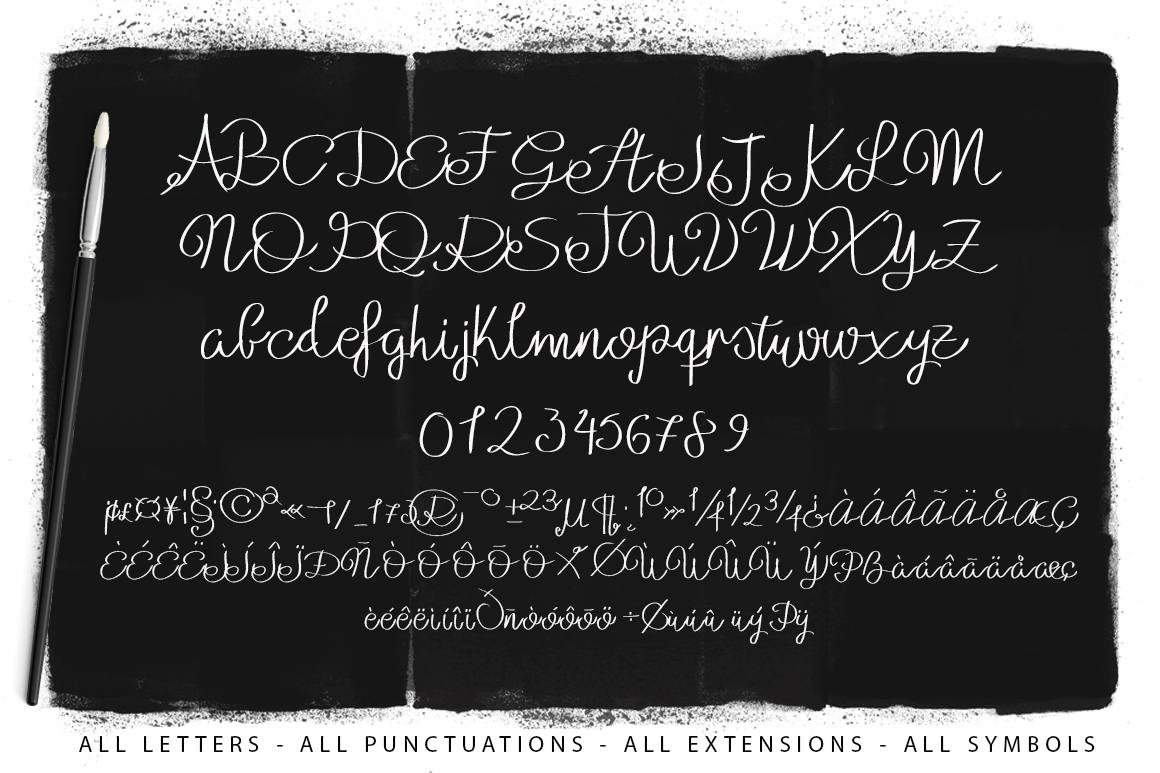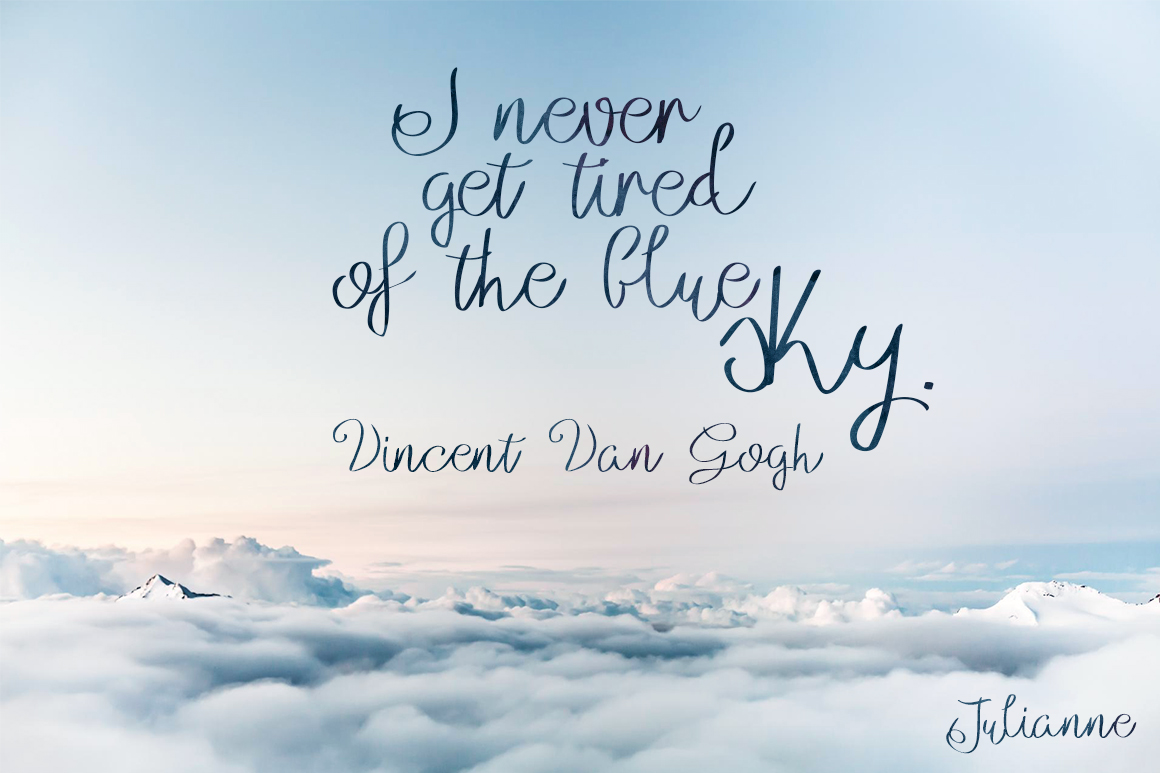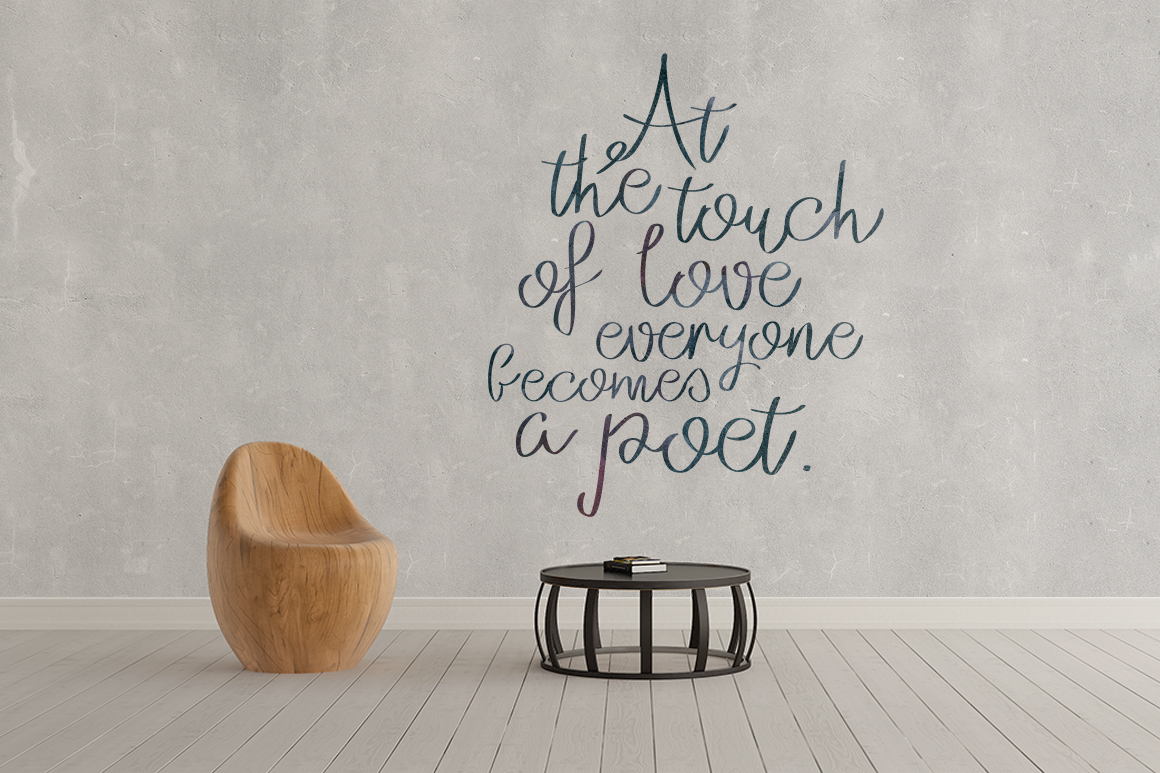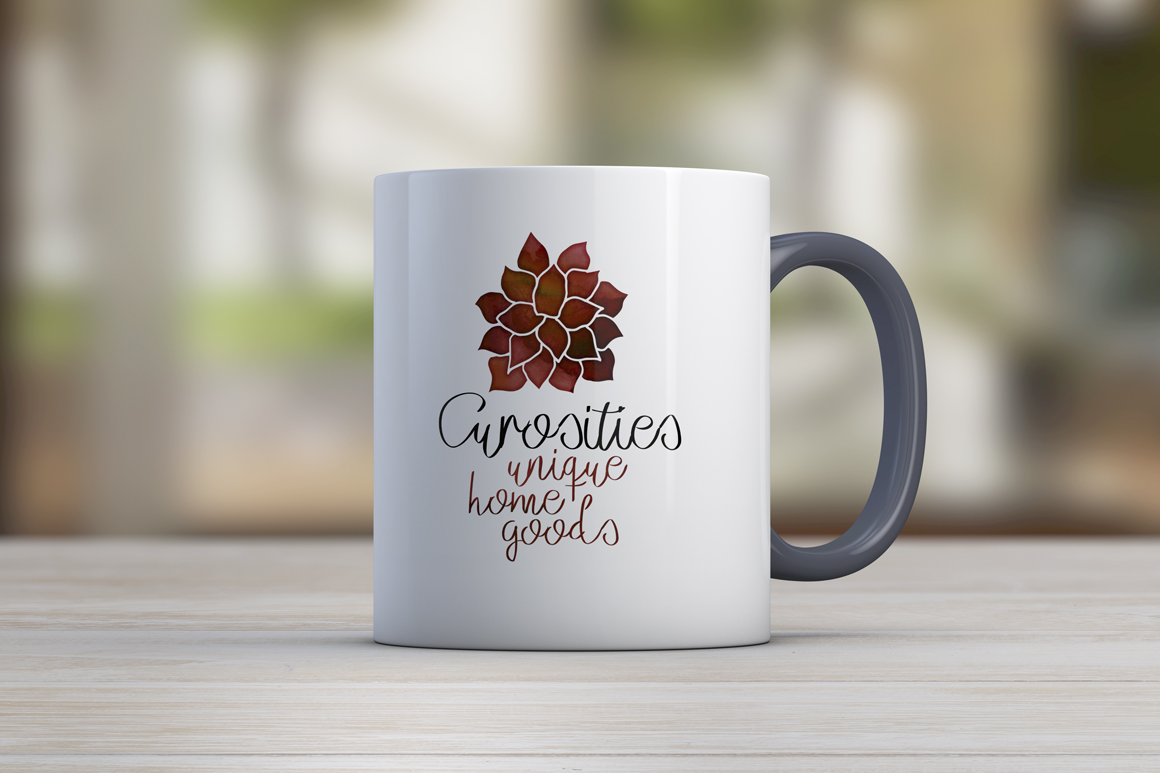
Introduction to Julianne Font
Julianne is a smooth, thin marker handwritten font.
The Julianne font has beautiful smooth letters Every glyphs has been perfect to match the others and the result is a super fluid font.
Key Features of Julianne Font